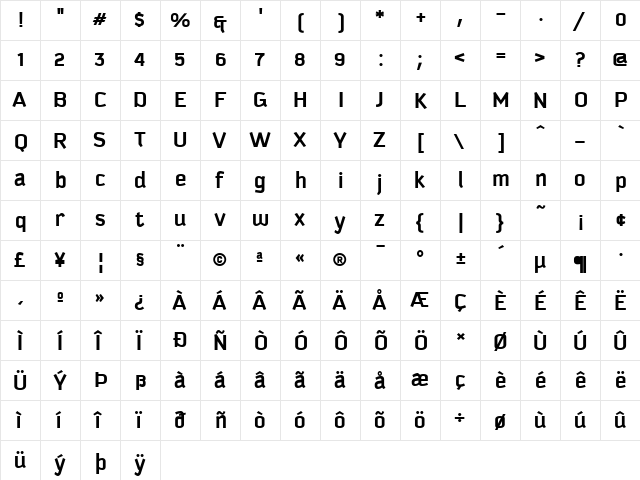
Kautiva Bold Font Preview
Kautiva Bold
Kautiva Bold Font Details
| Foundry | SUDTIPOS. Disenada por Alejandro Paul y Alfredo Graziani. Todos los derechos reservados. Buenos Aires, Argenti |
Design Context for Kautiva Typeface
Kautiva offers clean, dependable letterforms without strong stylistic allegiance, making it a practical choice for designers who need flexibility. Its bold stroke weight gives it real presence on the page.
Pro Tip: Pair Kautiva with a font of contrasting weight or personality to build a more expressive typographic hierarchy.